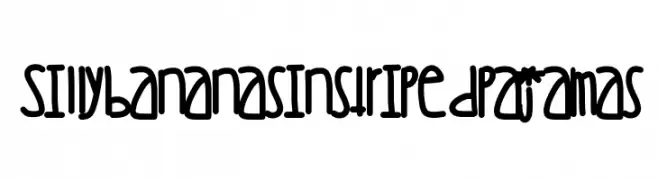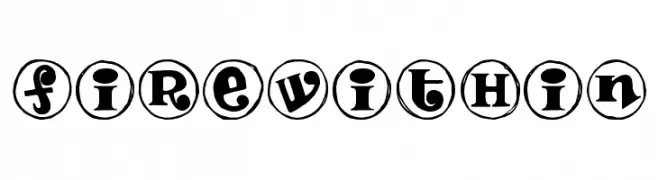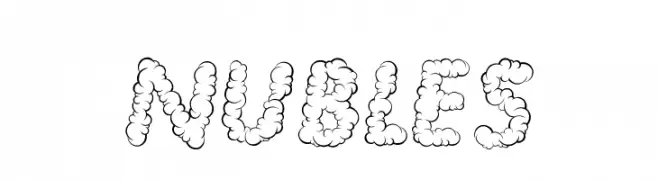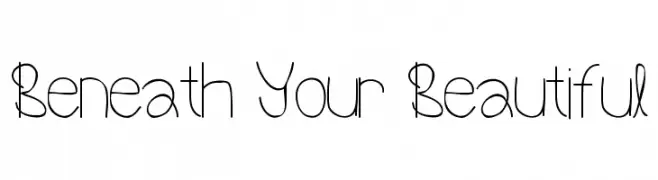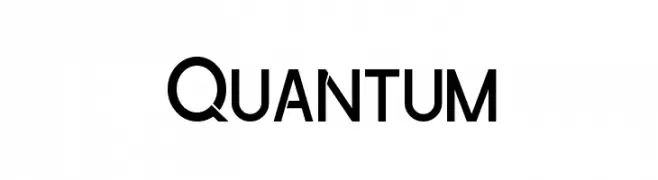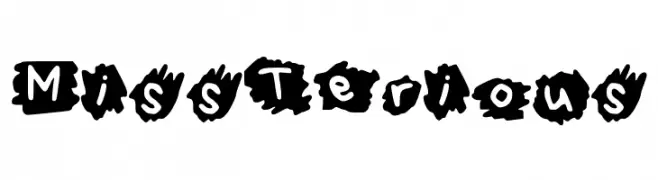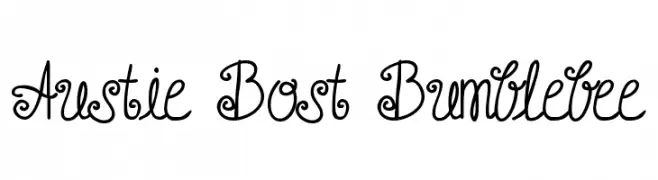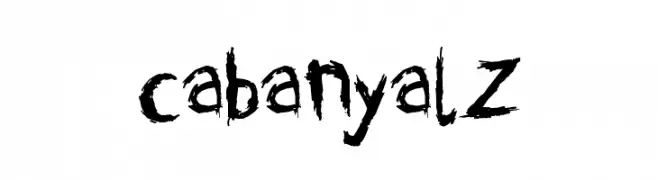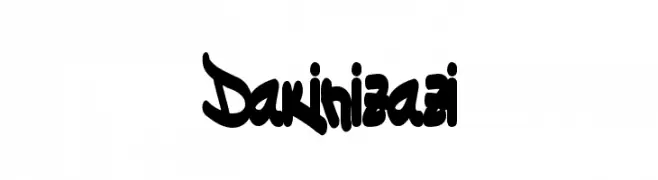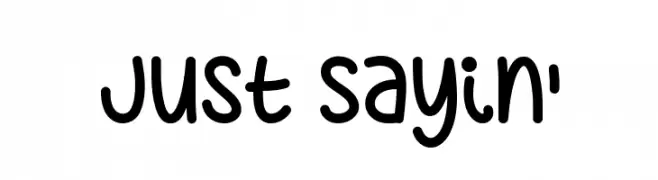
A playful, decorative font with bold characters enclosed in circles.
A playful, cloud-like font with rounded, bubbly characters.
A bold, modern sans-serif font with geometric lines and high readability.
A decorative typeface inspired by traditional papel picado with intricate cut-out patterns.
A playful, hand-drawn font with a whimsical and informal style.
A whimsical, decorative font with curly embellishments and playful style.
A whimsical and elegant script font with flowing, interconnected letterforms.
A playful, dripping paint-style font with irregular, artistic shapes.
A playful, hand-drawn font with a striped pattern and whimsical style.
A playful, hand-drawn font with a whimsical and informal style.
A playful, hand-drawn font with tall, narrow characters and a whimsical style.
A playful, hand-drawn font with a quirky, skeleton-like design.
A playful, hand-drawn font with quirky, irregular shapes and varying stroke widths.
A playful, hand-drawn font with rounded, irregular edges and a whimsical style.
A playful, handwritten font with a whimsical and childlike charm.
A bold, angular font with sharp lines and a dynamic, futuristic style.
A bold and intricate Blackletter font with sharp, angular lines and dramatic flourishes.